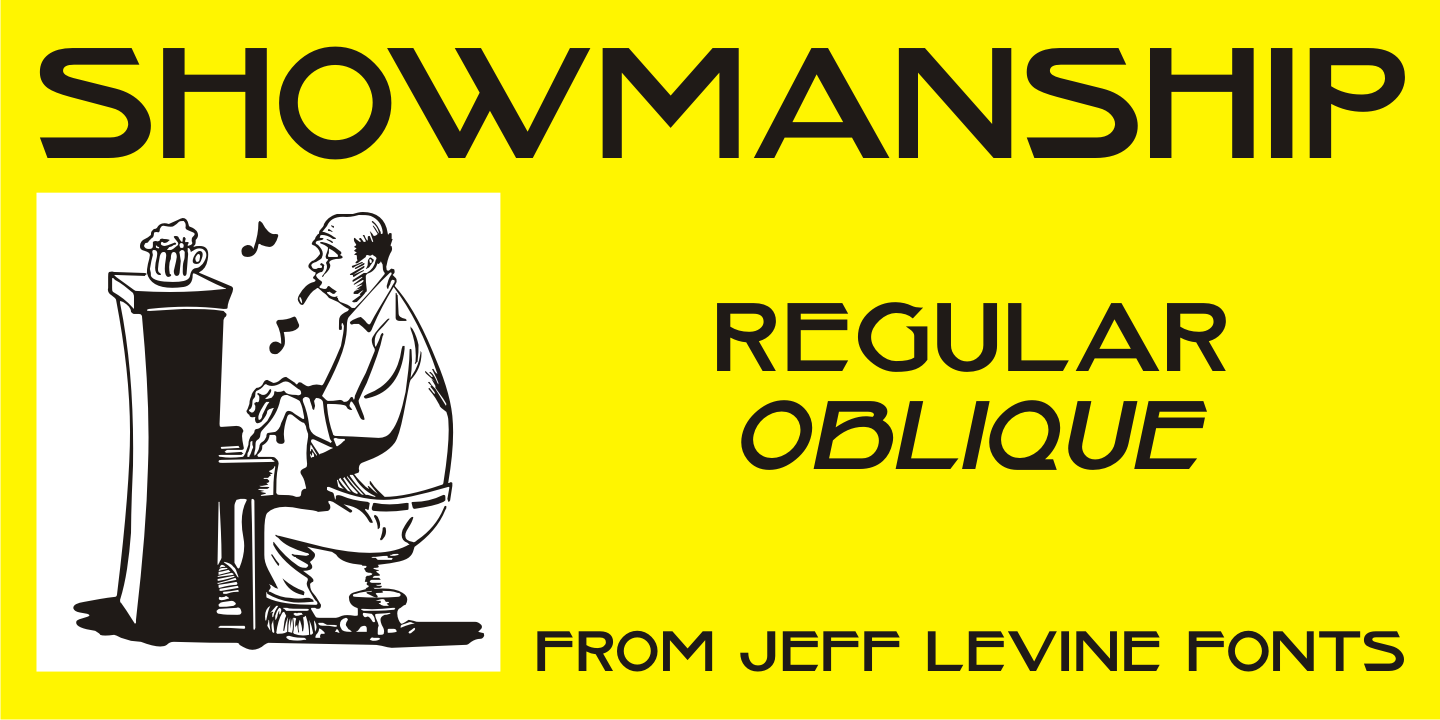
Looking to capture the golden age of entertainment in your designs? Showmanship JNL Font Free Download is a classic display font inspired by vintage show posters, marquee signs, and old-time circus advertisements. With its bold character and nostalgic flair, this font instantly transports your audience to a world of stage lights, red curtains, and larger-than-life performances.
Showmanship JNL Font Free Download is perfect for carnival flyers, theatrical promotions, signage, and any project that needs to shout with style. Its bold, blocky letters and vintage vibes make every word feel like part of the main event.